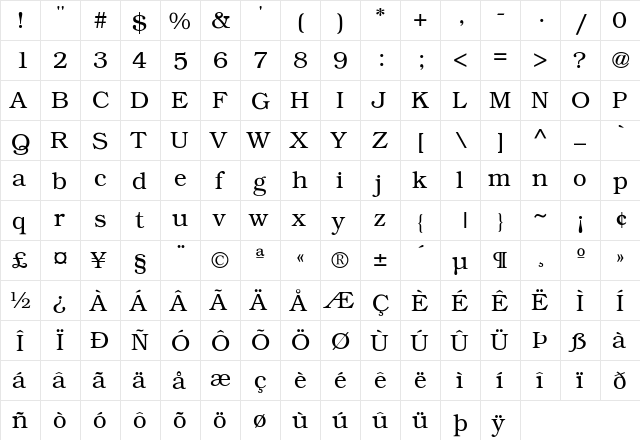
EdgeWater Light Regular
Design Context for EdgeWater Light Typeface
EdgeWater Light offers clean, dependable letterforms without strong stylistic allegiance, making it a practical choice for designers who need flexibility. Its slender proportions lend an understated elegance to any composition.
Pro Tip: Pair EdgeWater Light with a font of contrasting weight or personality to build a more expressive typographic hierarchy.